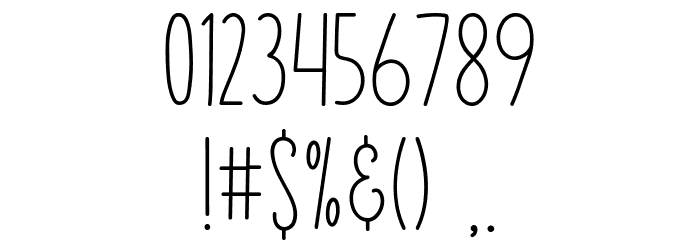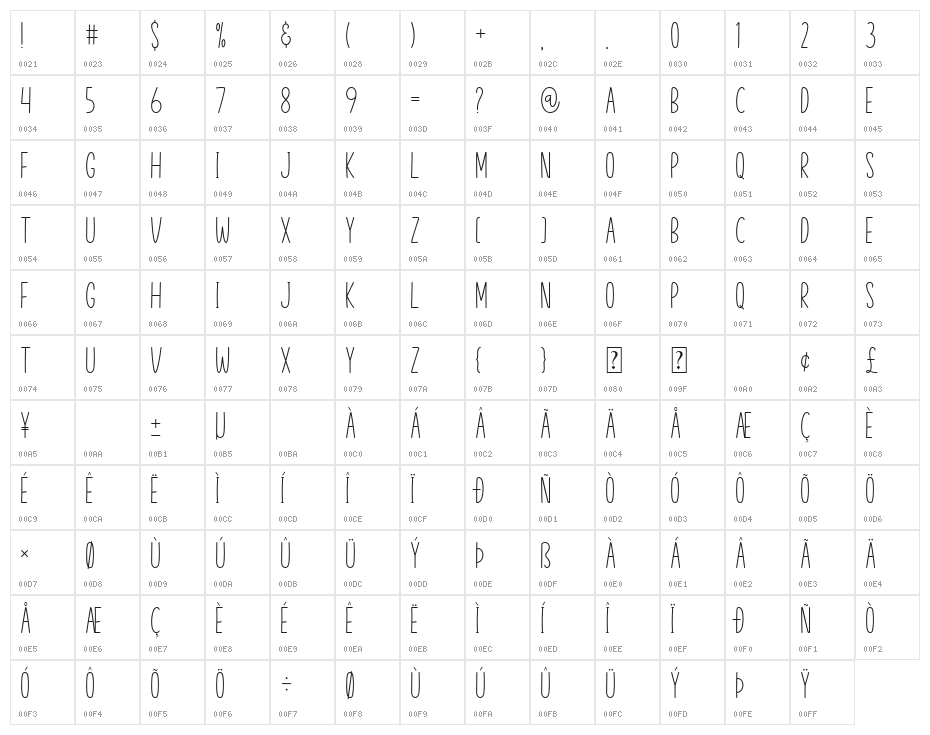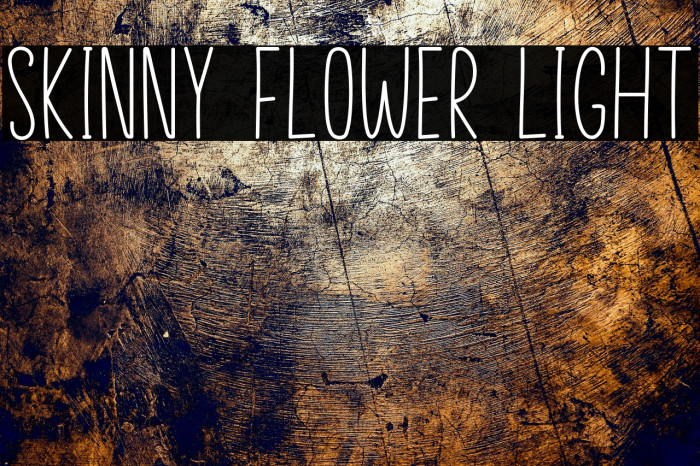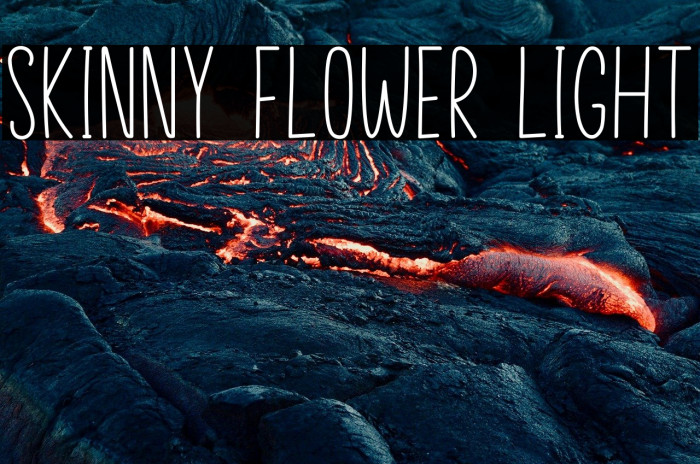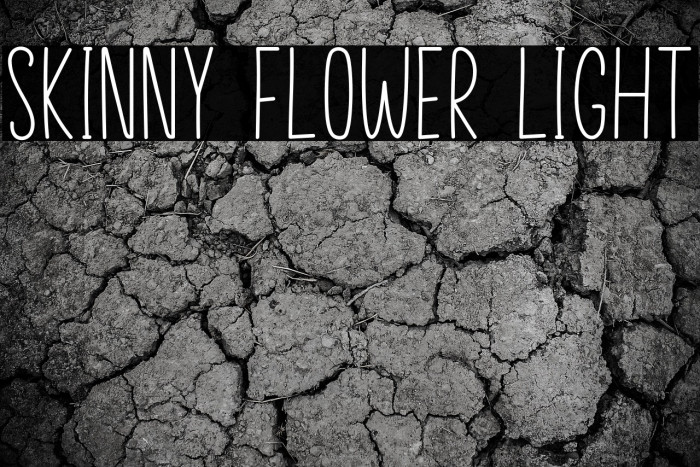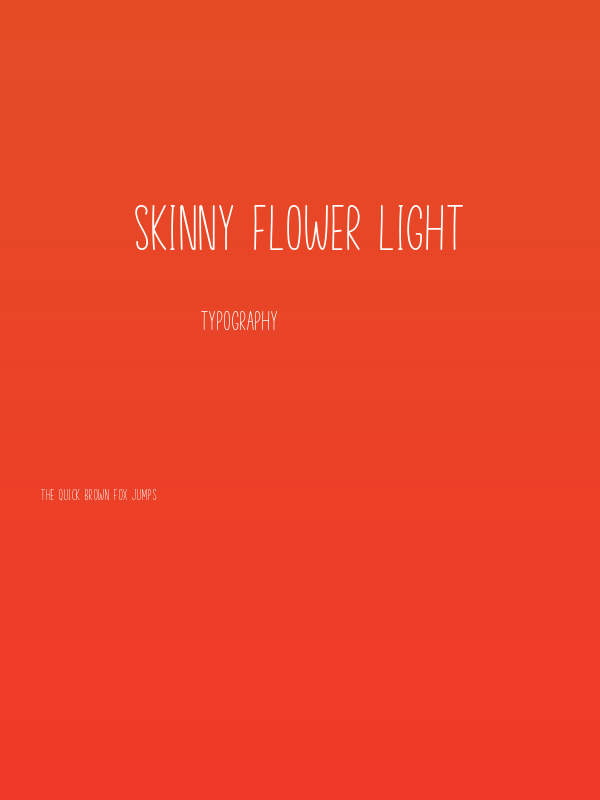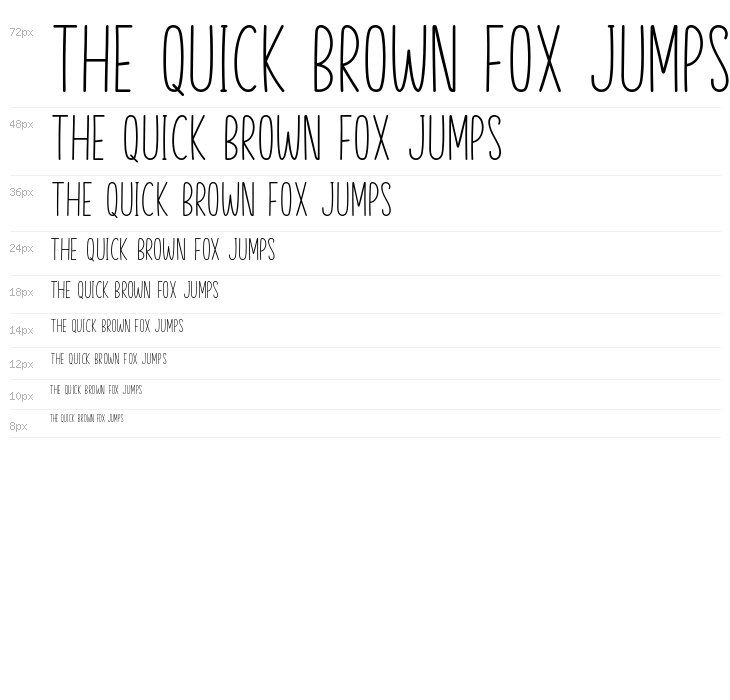
Skinny Flower Light Font
Skinny Flower Light Description
This font features a tall, slender design with a playful and whimsical feel. The characters are elongated and narrow, giving it a unique and modern appearance. The strokes are consistent in weight, contributing to a clean and minimalistic look. It has a handwritten style that adds a personal touch, making it suitable for creative projects. The font maintains a uniform height across all characters, enhancing readability while retaining its distinctive charm. The spacing between characters is balanced, ensuring clarity and legibility even in smaller sizes.